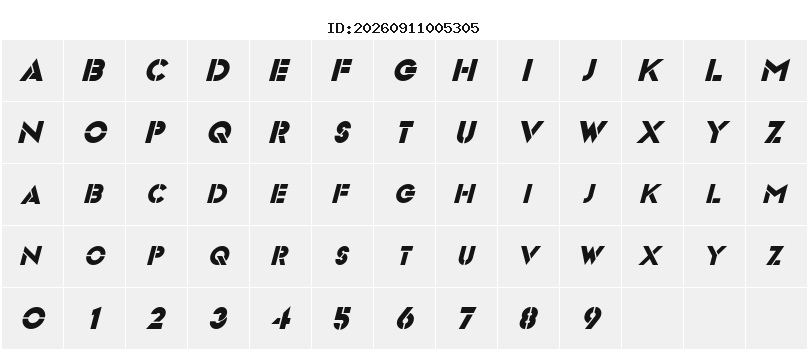
Videopac Preview
• Font Name: Videopac
• Font ID: Videopac Italic:Version 2.00
• Full Font Name: Videopac Italic
• Version: Version 2.00 September 8, 2014
• PostScript Name: Videopac-Italic
• Designer: Neale Davidson
• Manufacturer: Neale Davidson
About Videopac.otf
Videopac.otf is a modern, elegant sans-serif font designed for ultimate readability and visual harmony. Perfect for branding, headlines, web design, and print materials.